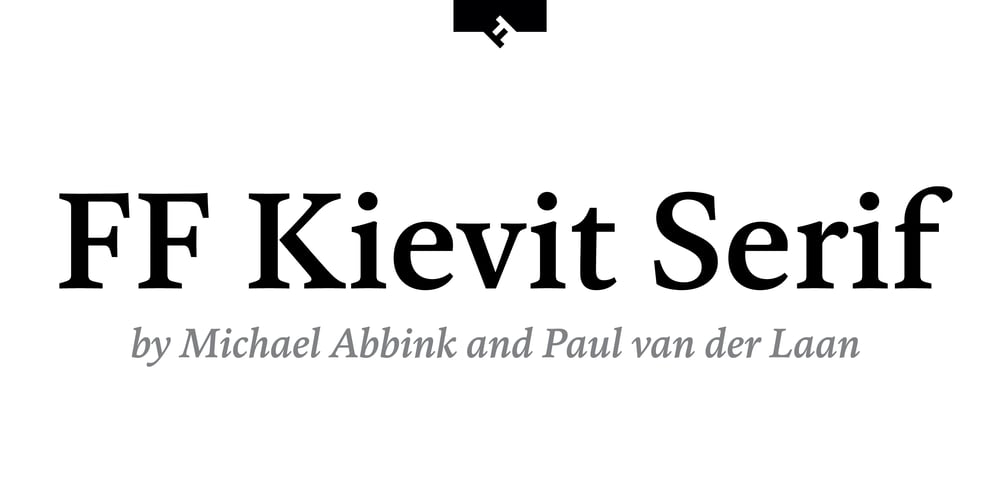
FF Kievit Serif
FF Kievit Serif font
FF Kievit Serif Font Family was designed by Paul van der Laan, Michael Abbink and published by FontFont. FF Kievit Serif contains 14 styles and family package options. FF Kievit Serif subtlety melds oldstyle design traits and a 21st century mien into a clean, straightforward suite of typefaces. As part of the FF Kievit super family it helps brands carry their voices effectively and legibly. This includes small text to display sizes, in both print and digital environments, for internal and external audiences. FF Kievit takes inspiration from classic designs like Garamond and Granjon, and is available in seven weights, plus italics. Drawn as a collaboration between Michael Abbink, Paul van der Laan, FF Kievit Serif is a natural extension to the other members of the FF Kievit super family, that also includes FF Kievit and FF Kievit Slab. FF Kievit Serif stands on its own as a multi-talented and exceptionally legible design. Large counters, a generous x-height and ample apertures ensure that FF Kievit Serif translates well to both hardcopy and interactive environments. FF Kievit Serif is available in carefully defined weights, ranging from Light to Black. The Regular, Book and Bold weights are ideally suited to long form text copy. Ligatures, several suites of numbers and small caps are also available. In addition, FF Kievit Serif benefits from the same extensive language support of the other designs in the family.